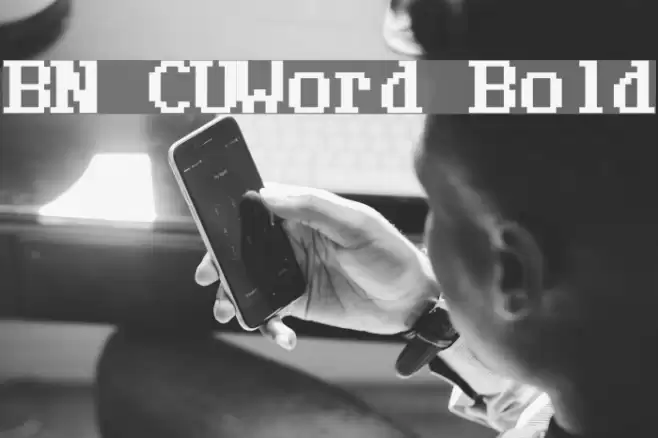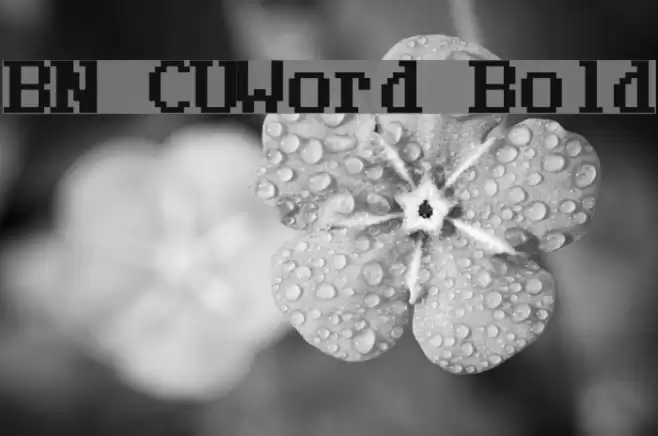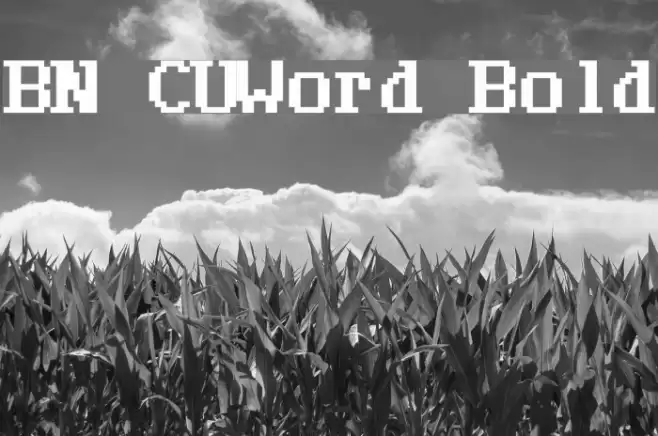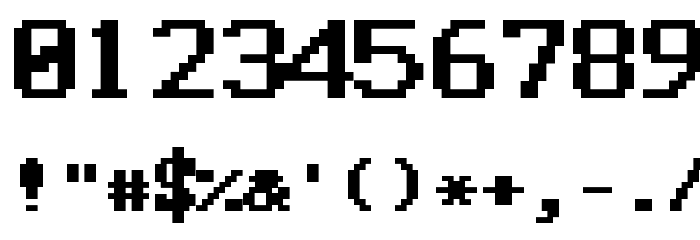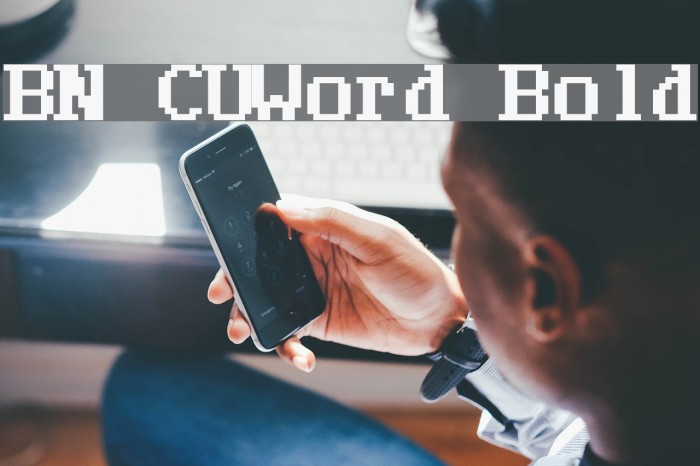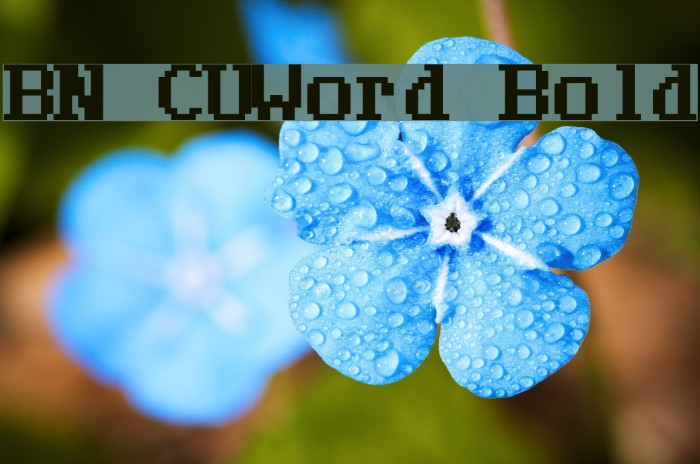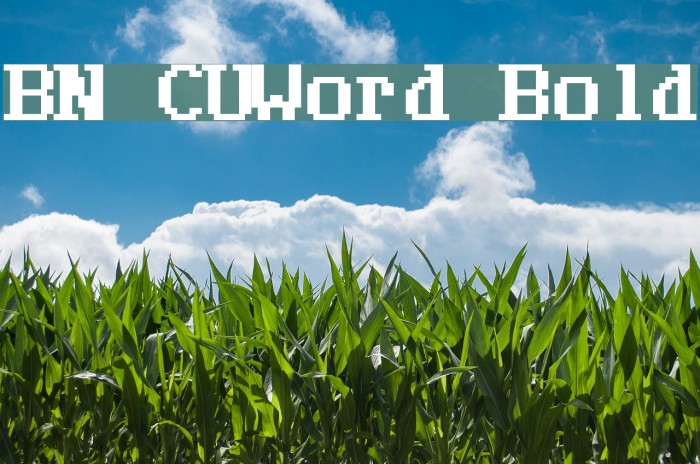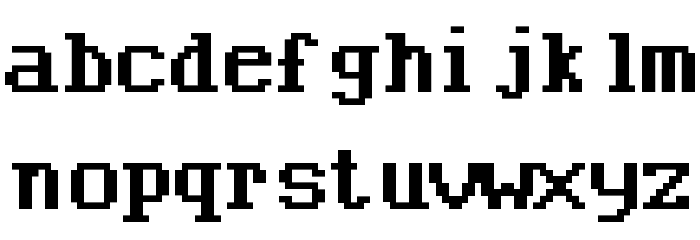
BN CUWord Bold Font
BN CUWord Bold Description
This font features a bold, pixelated style reminiscent of early digital or video game typography. The characters are blocky and geometric, with consistent stroke widths that give it a uniform appearance. The uppercase and lowercase letters maintain a similar height, enhancing the font's cohesive look. The numerals and special characters follow the same design principles, ensuring readability and a distinct digital aesthetic. This font is ideal for projects that require a retro or tech-inspired feel, offering a nostalgic nod to classic computing interfaces.
A bold, pixelated font with a retro digital aesthetic from Uncategorized fonts.
- Proposed Projects: Ideal for video game design, tech-themed posters, retro digital interfaces, and nostalgic branding.
- Overall Style: Retro, Digital